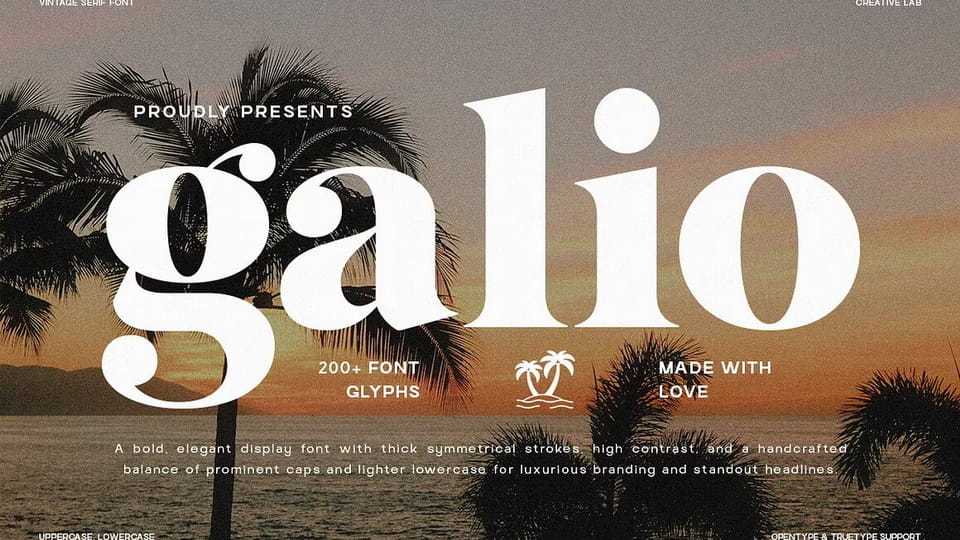
Download Galio font, an elegant vintage serif display typeface designed to bring character, contrast, and timeless sophistication to modern design projects. Featuring bold symmetrical strokes, high contrast letterforms, and refined curves.